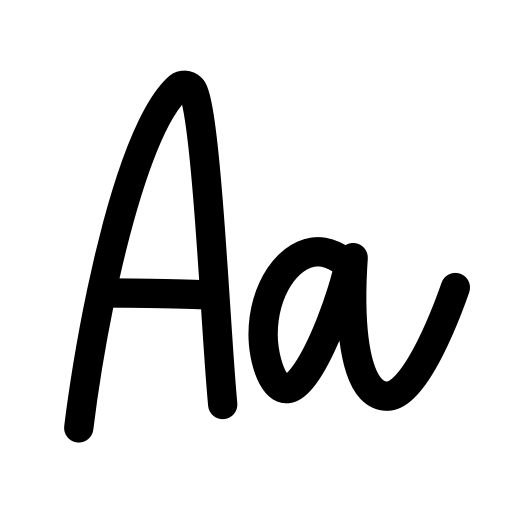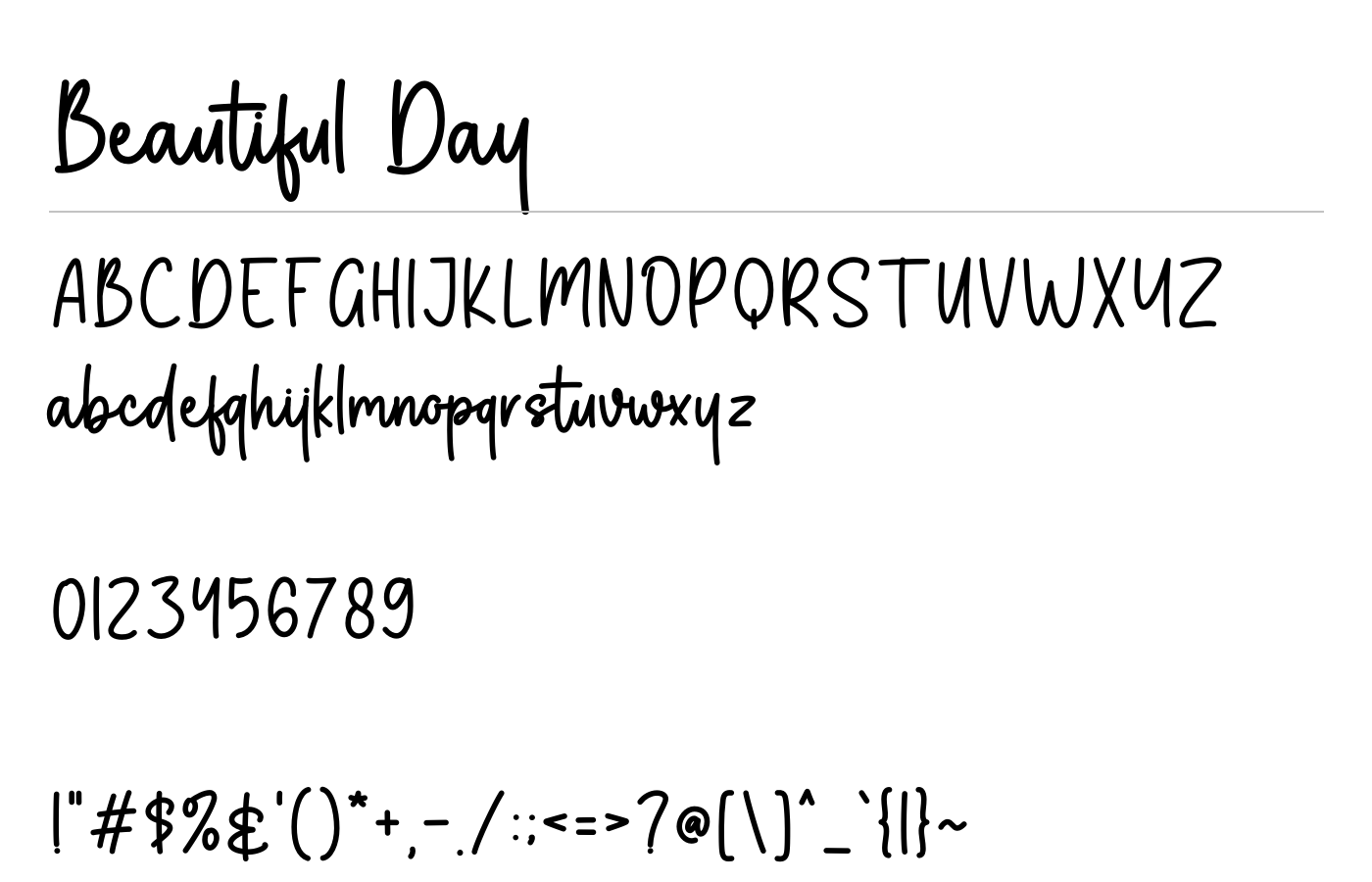
Beautiful Day is a playful and casual handwritten sans serif font with a light weight and slightly tall x-height, offering a friendly and approachable feel. Its smooth, flowing strokes and clear letterforms make it perfect for informal branding, invitations, and creative projects seeking a warm, personal touch. This font works well in headlines and short texts where a cheerful, lively vibe is desired.
Beautiful Day Font
About Beautiful Day Font